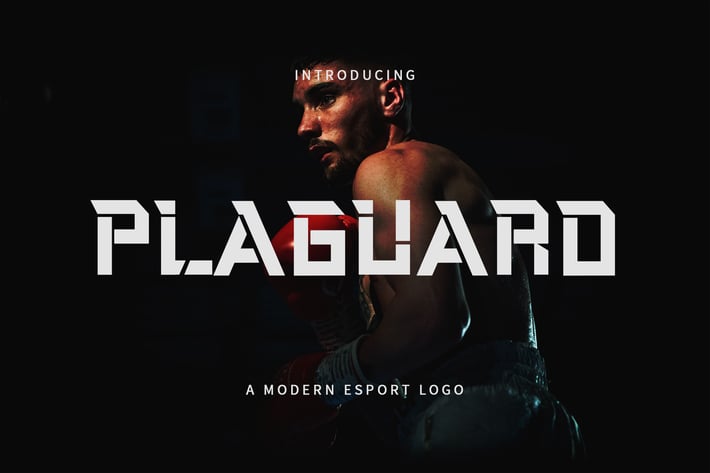
Plaguard - A Modern Esport Font
Hello! We are happy to introduce our new font "Plaguard" is a Modern display font, this font looks elegant, strong, rough, and easy to use.
Plaguard Font is the best choice for your professional design projects, including : logo, poster design, t-shirt, headline, flyer, cd cover album, quotes, business card, branding, magazines, social media, advertisements, product designs, or something that need strong or rough looks.